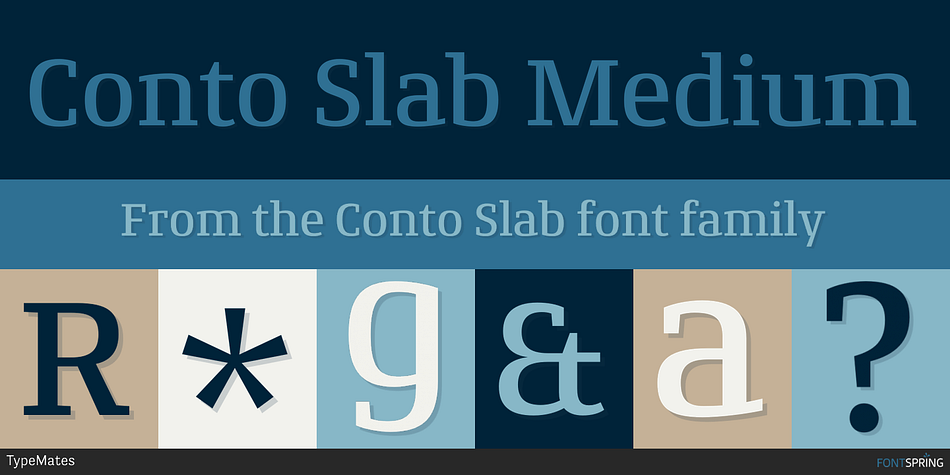
Conto Slab Medium
Designed by Nils Thomsen, Conto Slab is a serif and slab serif font family. This typeface has sixteen styles and was published by TypeMates.
Conto Slab - a further family member of the sans serif Conto.
Conto Slab — a further family member of the sans serif Conto — is an individual and significant slab serif typeface in eight weights. It is mainly designed for corporate identity along with the editorial design and advertising. An almost never seen before set of ligatures make the fonts useful for logos and lettering!
The sporty Thin and the powerful Black weights are working well in display typography, while the Regular, Medium and Bold weights are meant to stay well in text and tables.
Main characteristic are the minimalistic and reduced lowercase shapes (a, b, d, g, m, n, p, q, r, u). Another specific feature is the rising contrast. Whereas you can not find any contrast in the Thin weight, you will find more and more contrast while climbing up to Black.
“Enjoy the extraordinary italics!” They are not just slanted slab obliques, they are a mixture of real italics and slanted shapes. Have a look!
Conto Slabs special ligatures are made for logo-types and lettering. Therefore you find around 100 discretionary ligatures like cl, en, rx or sty and many more! Try the OT-feature ss01. Maybe there is something nice for your next logo.
Each font contains around 878 glyphs and supports all Latin-script based languages. It also includes small-caps and all kind of figures you need for serious typography. Of course, you have case and small-cap sensitive punctuation and fractions up to 1/9 (one ninth).